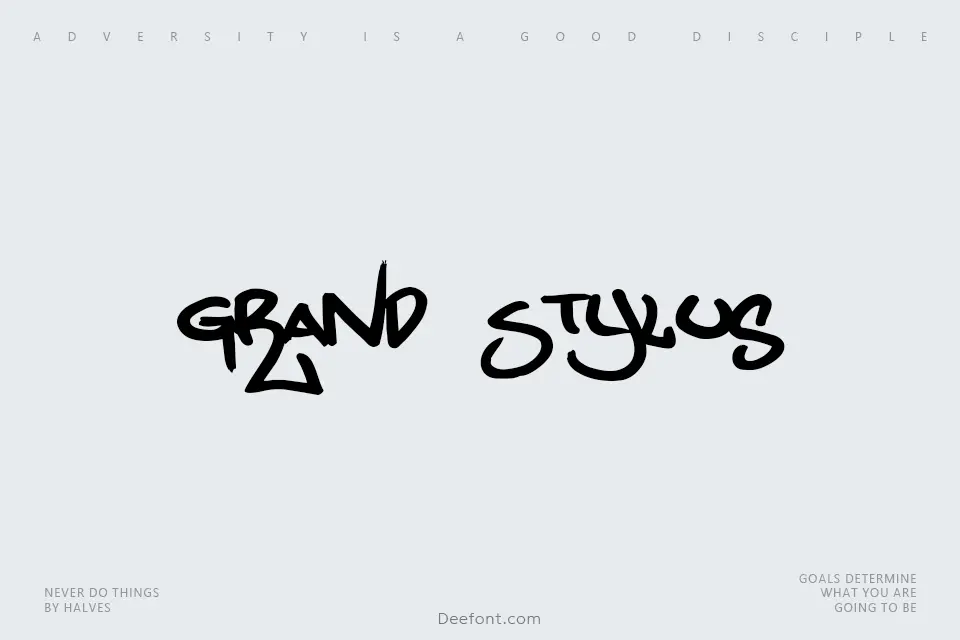
Grand Stylus Font
Grand Stylus is a dynamic script and graffiti typeface that embodies urban street art aesthetics with its flowing, stylish letterforms. Designed for creative projects requiring visual impact, this versatile font captures the essence of modern graffiti art while maintaining excellent legibility. Perfect for posters, album covers, branding, and contemporary design work, Grand Stylus delivers bold, eye-catching typography that stands out with its distinctive character and artistic flair.